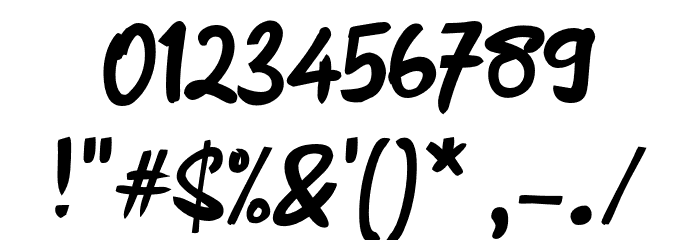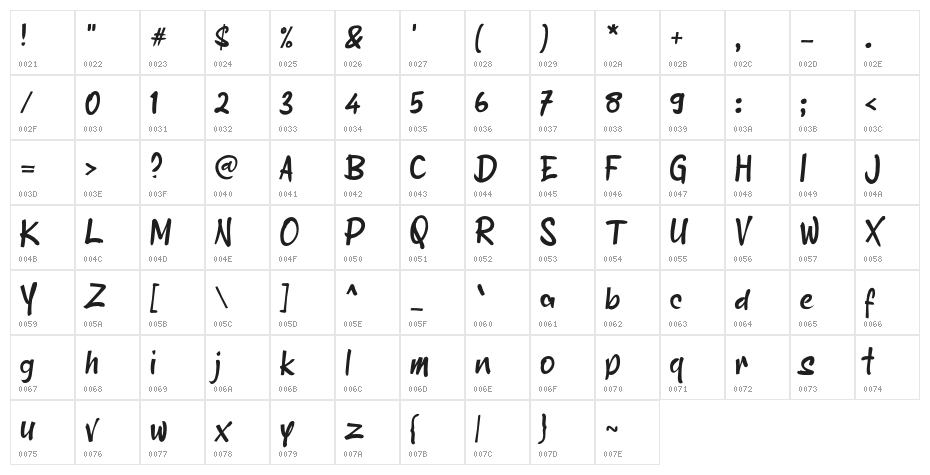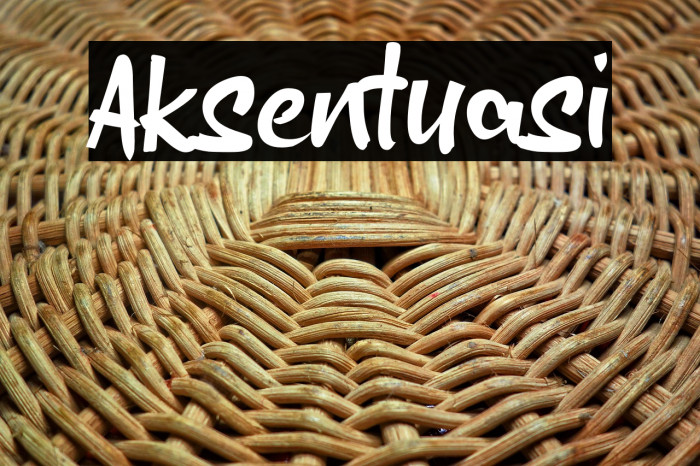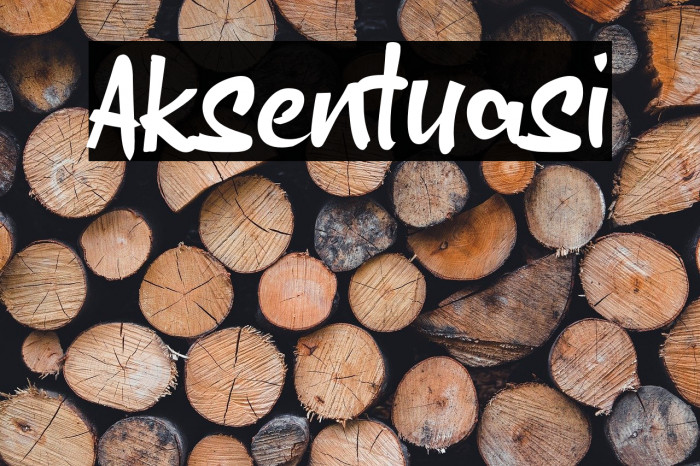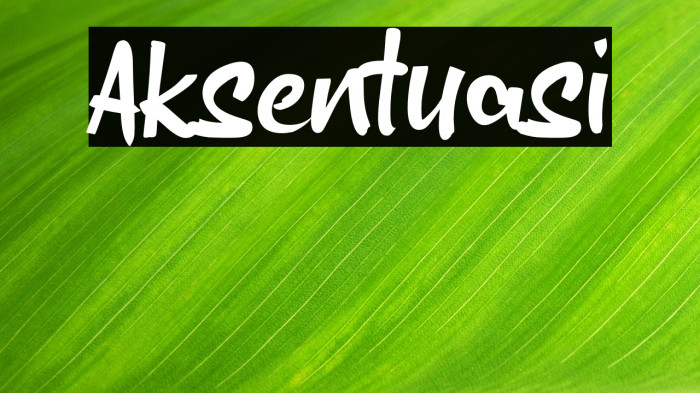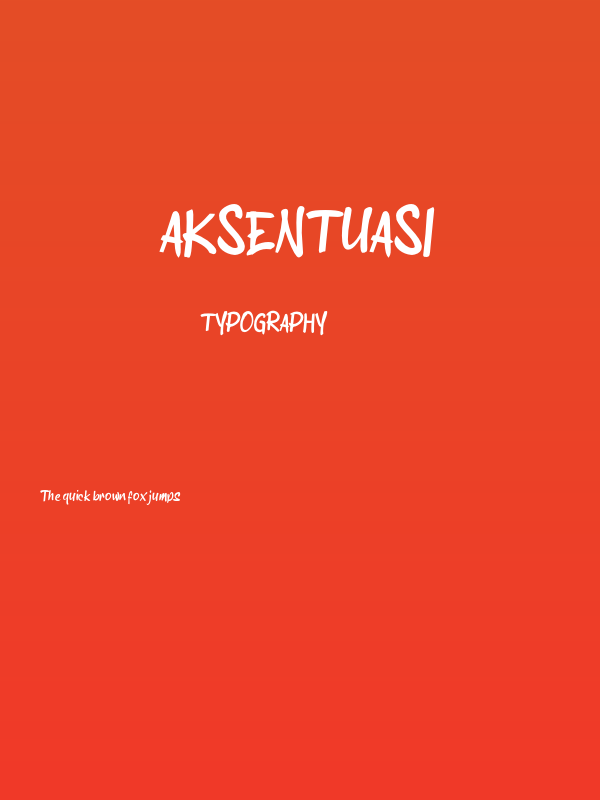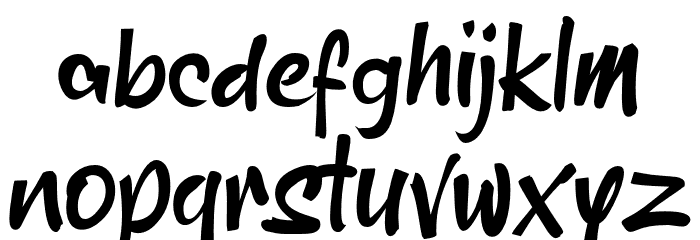
Aksentuasi Font
Aksentuasi Description
This font features a bold and expressive handwritten style, characterized by its dynamic and energetic strokes. The letters have a playful and informal appearance, with varying thickness that adds a sense of movement and personality. The uppercase and lowercase letters maintain a consistent style, while the numerals and special characters complement the overall design. The font's casual and friendly vibe makes it suitable for projects that aim to convey warmth and approachability.
| Use Case | Logos, Headlines, Informal Invitations |
| Proposed Projects | Ideal for greeting cards, children's books, casual branding, and social media graphics. |